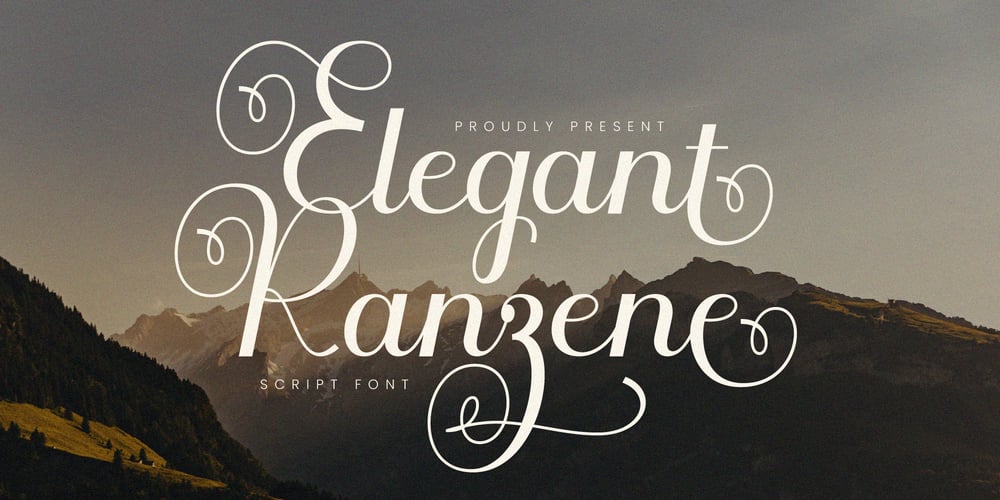
Ranzene
Ranzene font
Ranzene Font Family was designed by Randi Irvan and published by Rvandtype. Ranzene contains 1 styles and family package options. Ranzene is a refined and elegant calligraphy font, crafted to bring sophistication and charm to your creative projects. It blends timeless beauty with a contemporary edge, ensuring that your designs stay on-trend and captivating. Each stroke is meticulously designed to exude authenticity, making it perfect for a variety of applications, including: Wedding Invitations: Add a romantic and luxurious touch to your special day. Branding Projects: Elevate your logos, business cards, or packaging with a sense of professionalism and elegance. Social Media Content: Create visually stunning posts, stories, or highlights that stand out. Stationery: Enhance your greeting cards, thank-you notes, or event signage. Quotes and Posters: Give your inspirational messages a personal and artistic flair. With its graceful curves and realistic hand-drawn feel, Ranzene ensures your designs resonate with warmth and sophistication. Perfectly suited for both formal and casual themes, it’s a versatile choice that will bring your ideas to life!